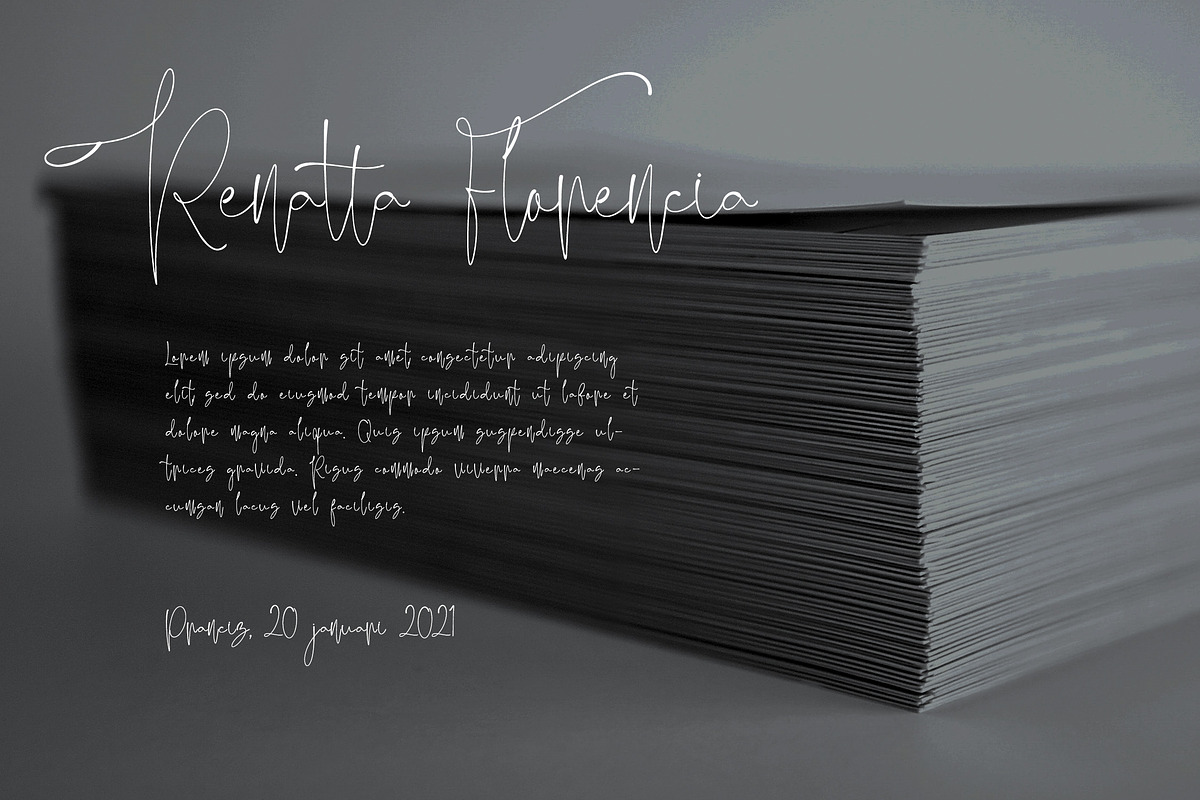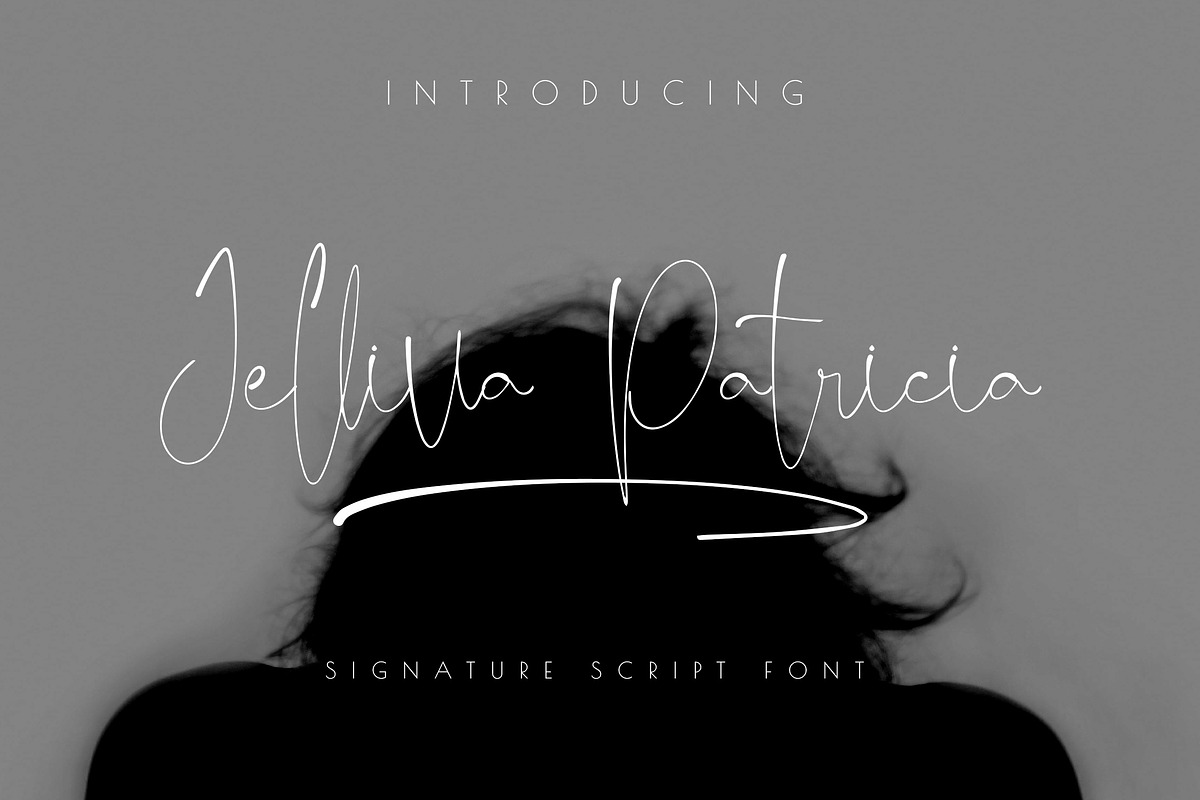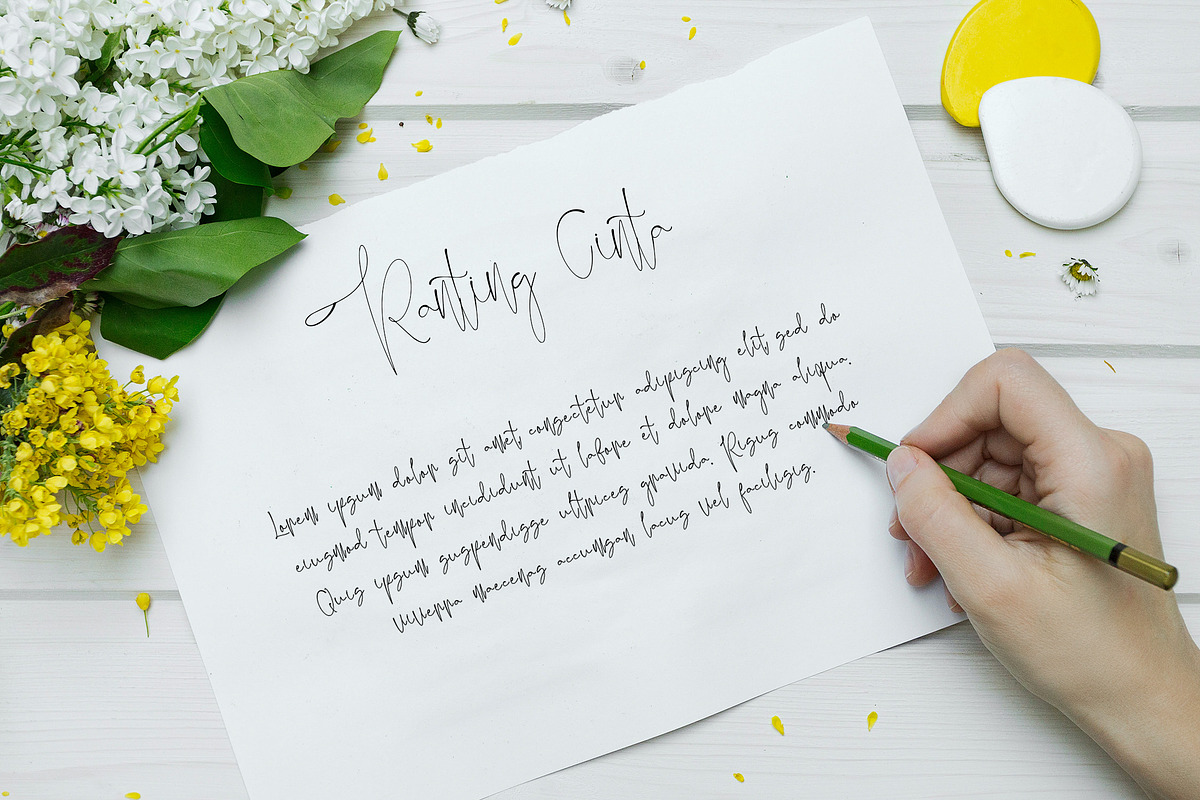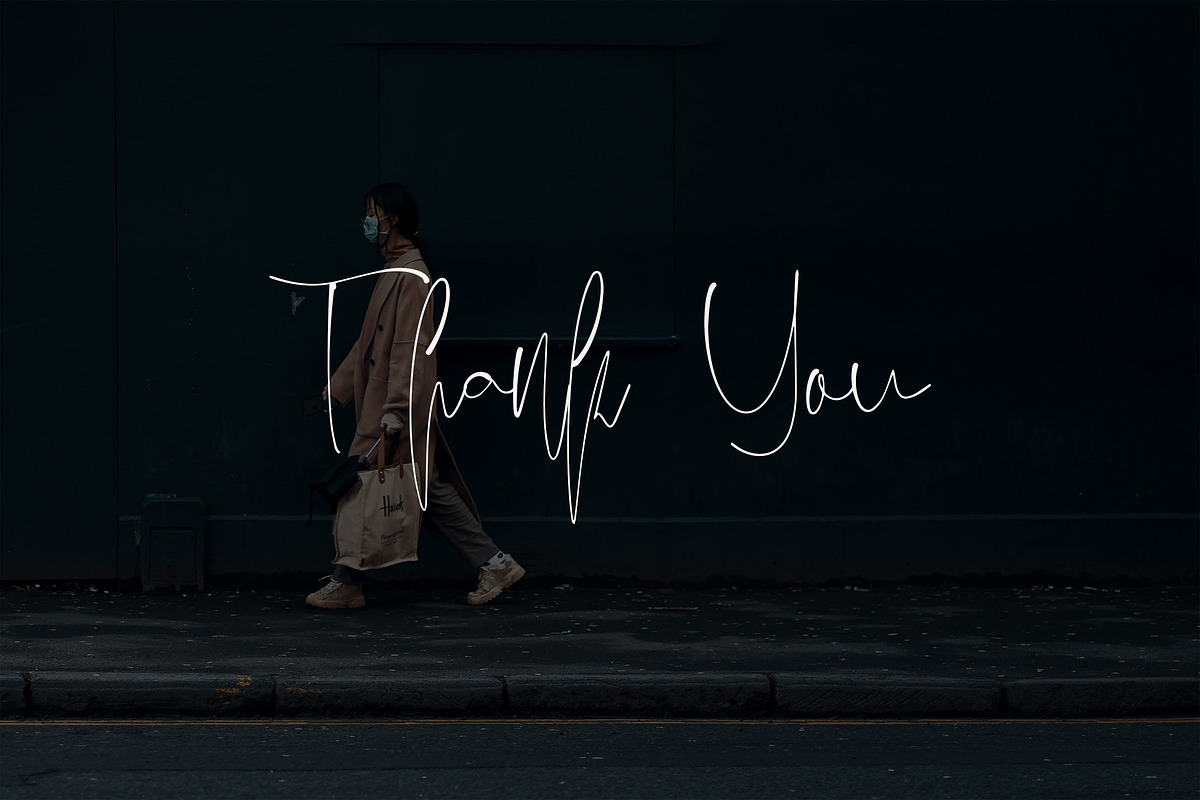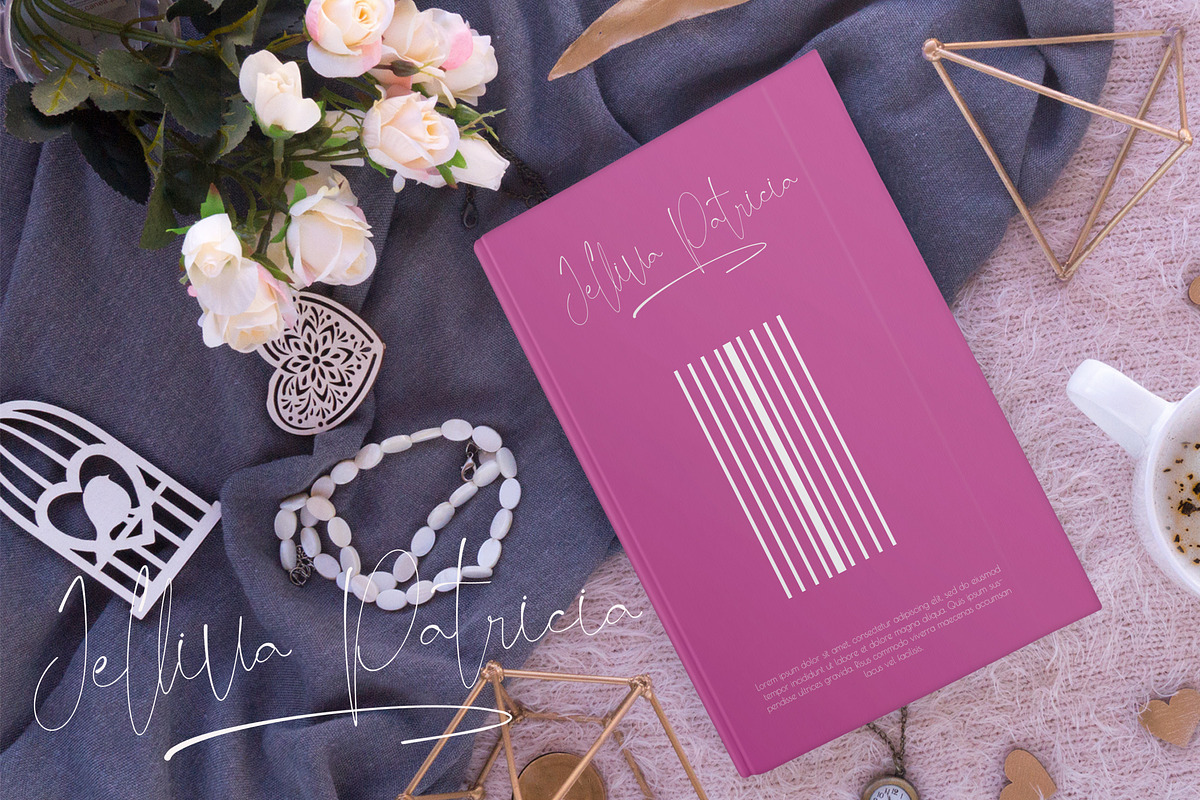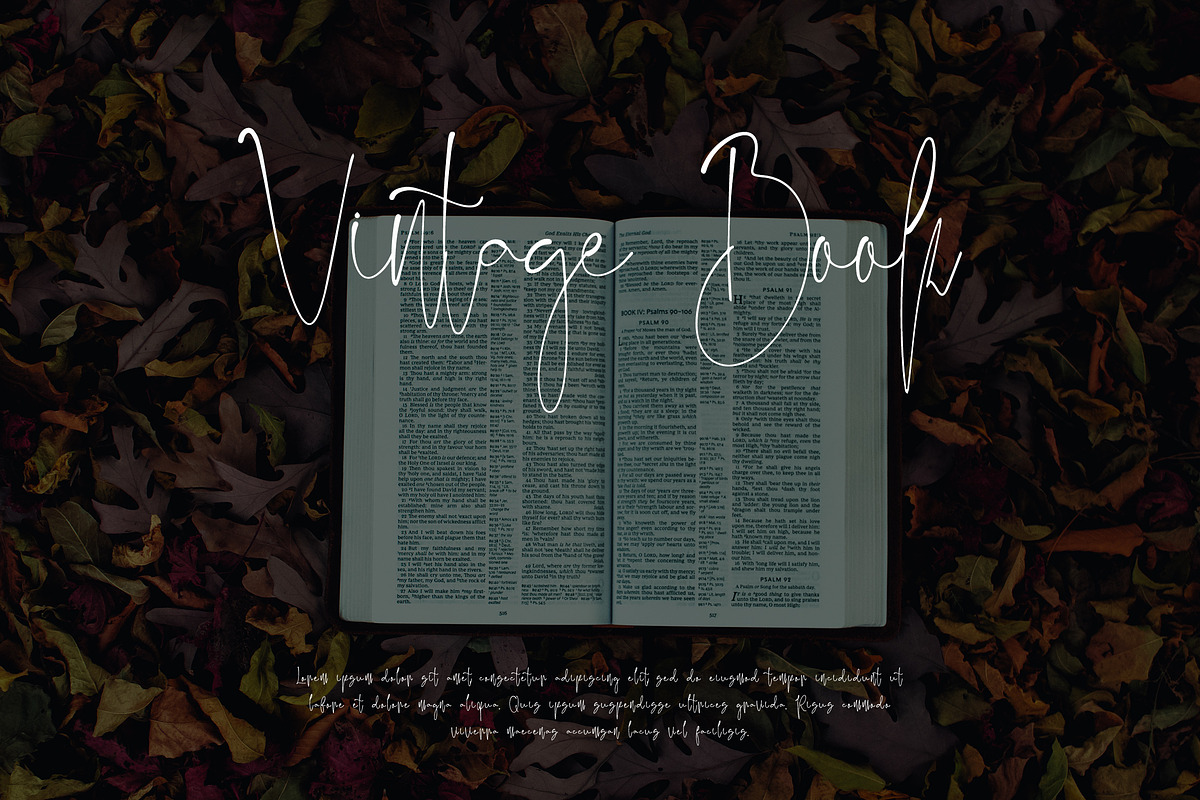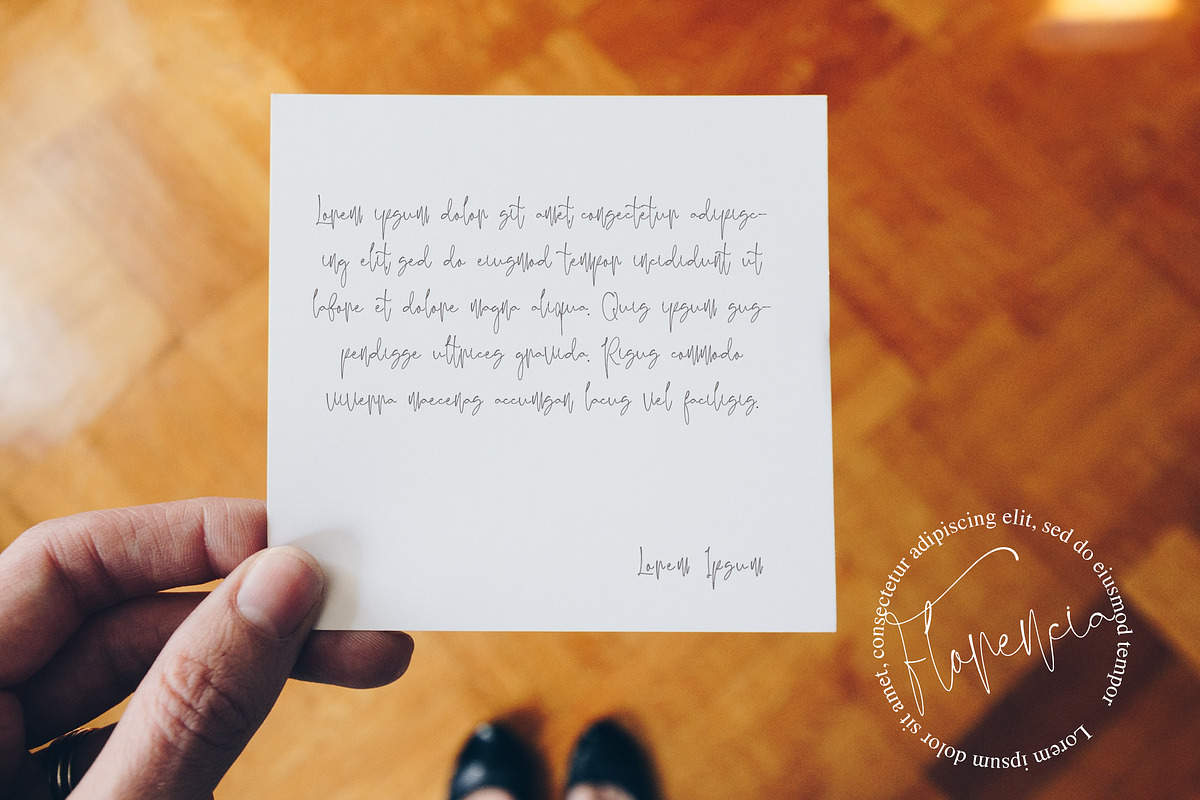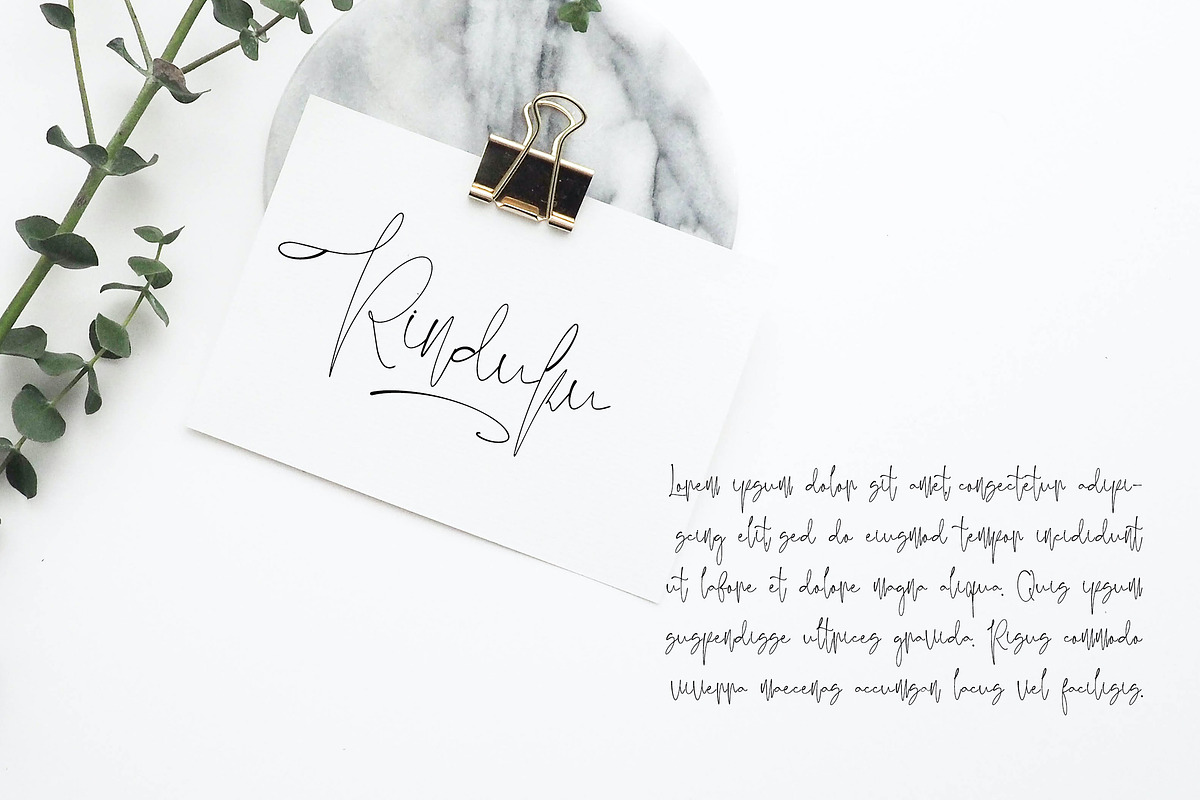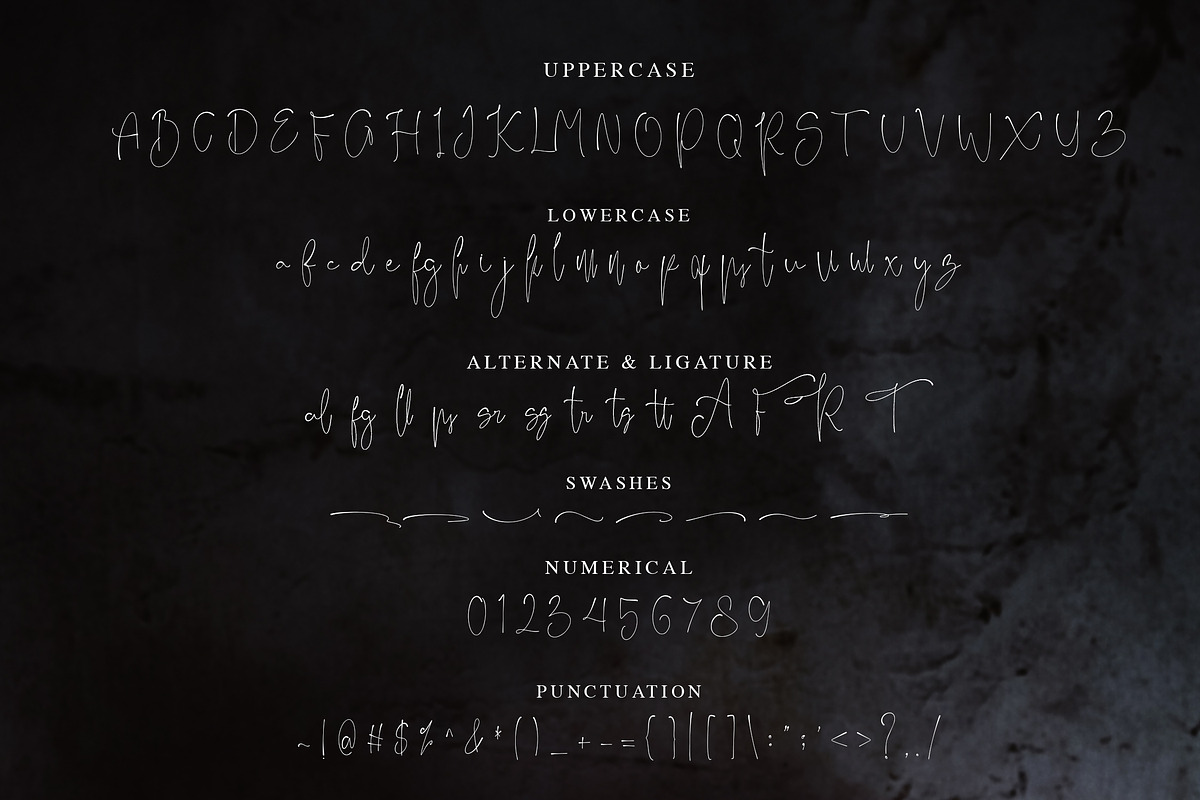
Jelliva Patricia - Handwritten
Jelliva Patricia is a beautiful signature script font with feminine handwritten style. Is a font style that is made with scratches and curvature shapes font characters are very beautiful. Can be applied to support the graphic appearance of the product to be more attractive and unique. This font is suitable for making previews and covers, logo designs, shirt designs, and other graphic needs.
Jelliva Patricia font with uppercase characters A-Z, lowercase characters a-z, punctuation, swashes, stylistic alternate and ligature characters that enhance this font shape.
-Ligature
-Stylistic Alternate
-Swashes